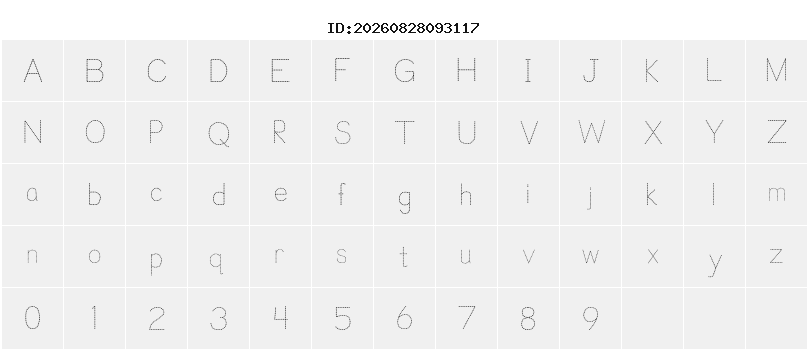
Trace Font for Kids Preview
• Font Name: Trace Font for Kids
• Full Font Name: Trace Font for Kids
About Trace Font for Kids.ttf
Trace Font for Kids.ttf is a modern, elegant sans-serif font designed for ultimate readability and visual harmony. Perfect for branding, headlines, web design, and print materials.